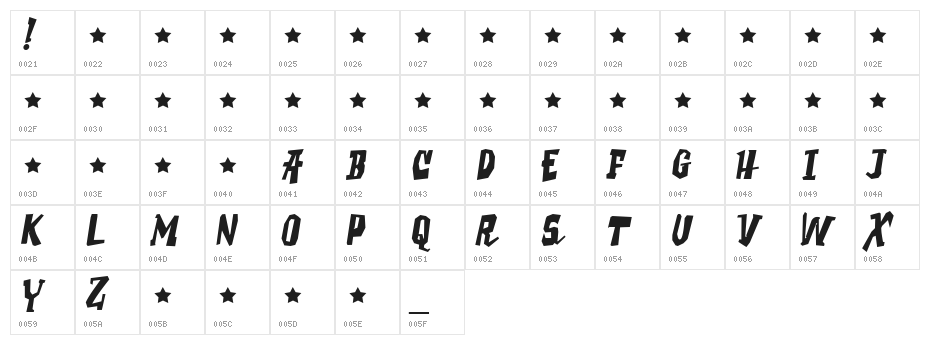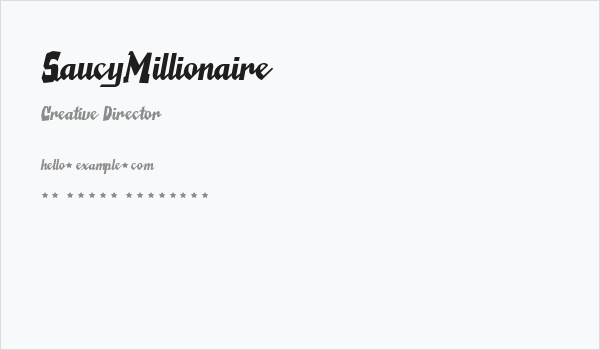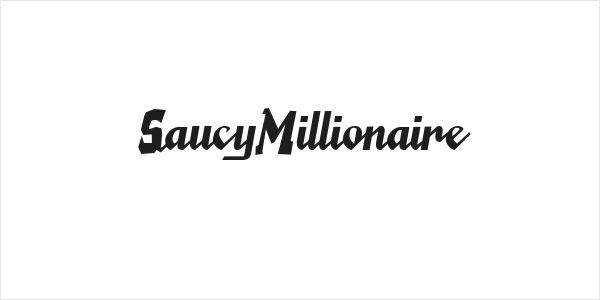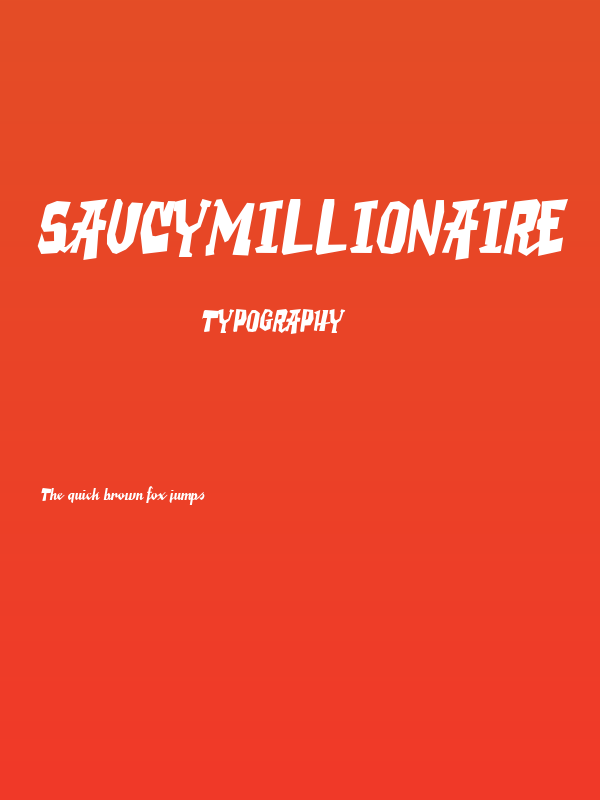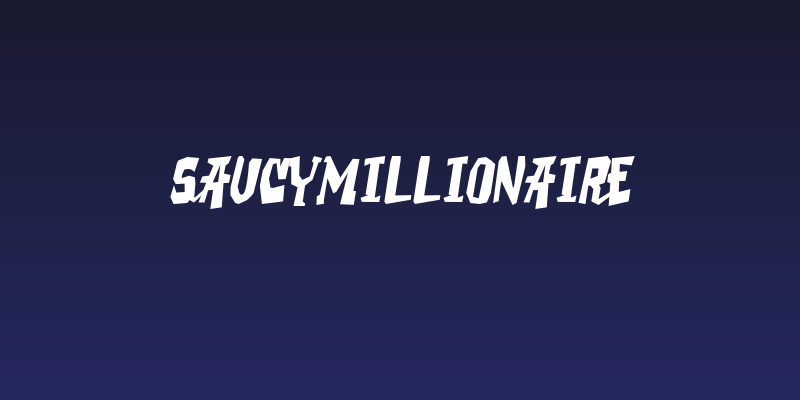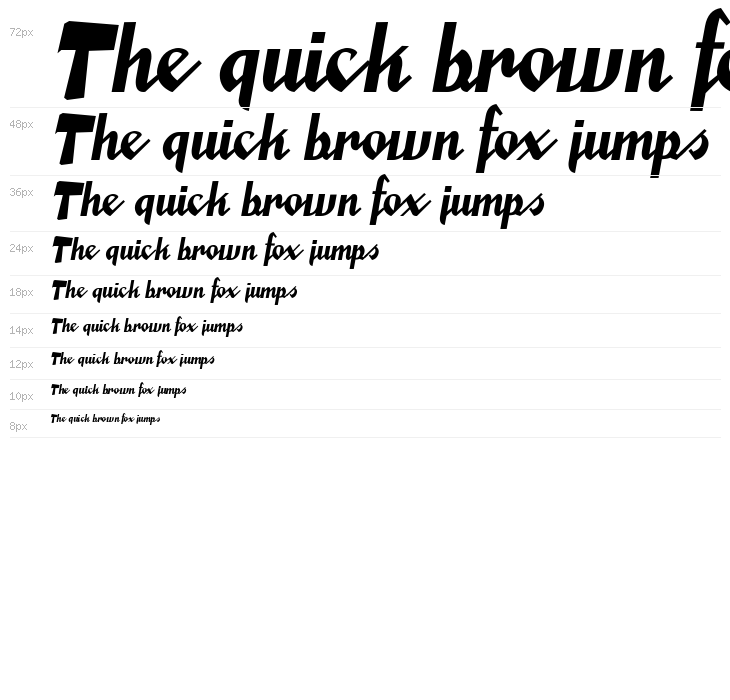
SaucyMillionaire Font
SaucyMillionaire Description
This font features a bold and dynamic style with a strong presence. The uppercase letters are characterized by sharp angles and a slightly condensed form, giving them a powerful and assertive look. The lowercase letters maintain a similar boldness but with a more fluid and cursive-like design, adding a touch of elegance and movement. The numbers and special characters follow the same bold and angular theme, ensuring consistency throughout the typeface. The overall design is eye-catching and suitable for making a statement, with a unique blend of modern and decorative elements.
| Proposed Projects | Ideal for branding, posters, headlines, and any project requiring a strong visual impact. |